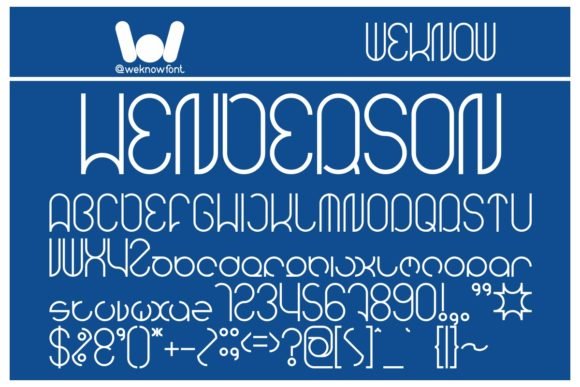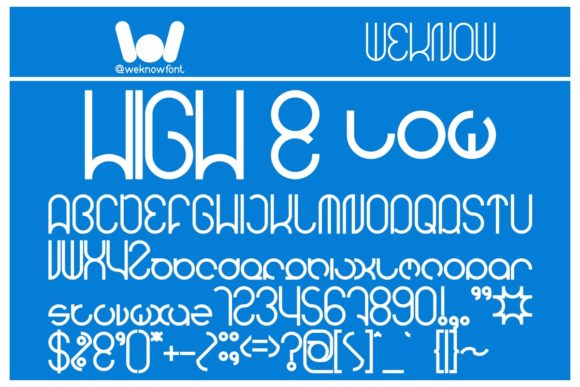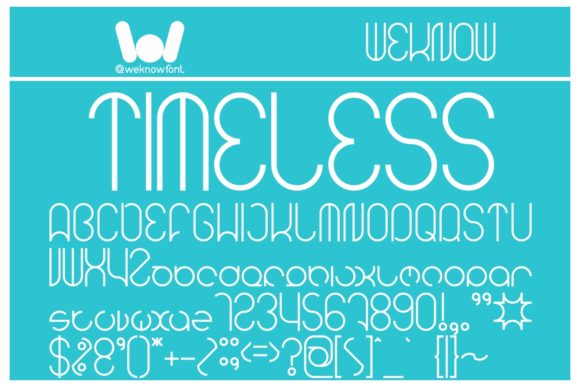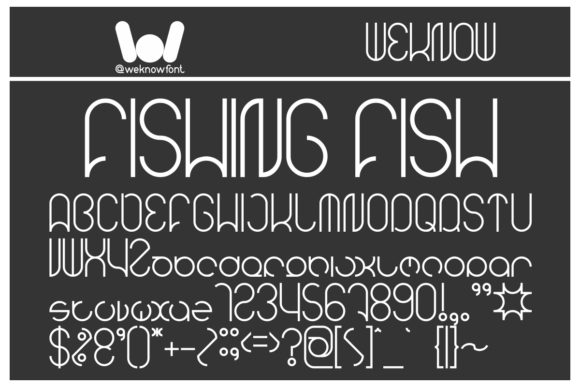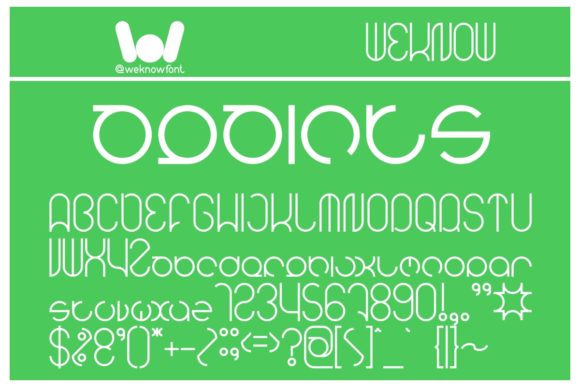
The Perfect Typography for Futuristic Designs
You know that moment when you’re brainstorming ideas for a project and suddenly, the perfect font pops into your mind? For designers, this is a magical feeling. It’s like the universe is telling you that you’re on the right track. And that’s exactly what happened when we stumbled upon the Henderson Font – a techno display font that’s about to revolutionize your design game.
Henderson Font is the perfect blend of futurism and minimalism, making it an ideal choice for music posters, game designs, magazines, websites, and anything else that requires a touch of edginess. This versatile font is not just a design element, but a statement piece that can elevate your entire project.
Whether you’re a seasoned designer or just starting out, the Henderson Font is an invaluable addition to your toolkit. Its sleek and modern aesthetic is sure to impress, and its ease of use makes it a breeze to integrate into your design workflow.
Henderson Font Key Features
- Unique Characteristics: Henderson Font features a unique blend of modern and classic elements, with subtle rounded edges and a distinctive x-height, making it suitable for a wide range of design applications.
Henderson Font Review
I’ve had the chance to work with the Henderson font, and overall, it’s a solid choice for a wide range of projects. ✨ Its versatility and readability make it a great option for both body text and headings.
- ✨ Beautifully crafted, elegant design that adds a touch of sophistication to any project
- ✨ Highly legible, even at smaller font sizes, making it perfect for body text
- ✨ Great for use in print and digital media, with a wide range of font sizes and styles available
That being said, there are some limitations to consider:
- ⚠️ Limited support for certain languages, which may be a concern for multilingual projects
- ⚠️ Not as effective for use in bold or italic styles, where the font can look a bit awkward
- ⚠️ May not be the best choice for projects that require a lot of font customization or modification
Overall, I’d say the Henderson font is a great choice for projects where you need a clean, elegant design that’s easy to read. Just be aware of its limitations and consider them carefully when making your decision.
For a more professional look, pair the Henderson Font with a clean and minimal design aesthetic.
For a unique look, experiment with combining the Henderson Font with custom illustrations or graphics.
For a professional presentation, pair the Henderson Font with a clean and modern design aesthetic.
The Henderson Font is perfect for:
- Business cards and stationery.
- Marketing materials and brochures.
Remember to always choose the right font size and style to ensure maximum readability and impact.